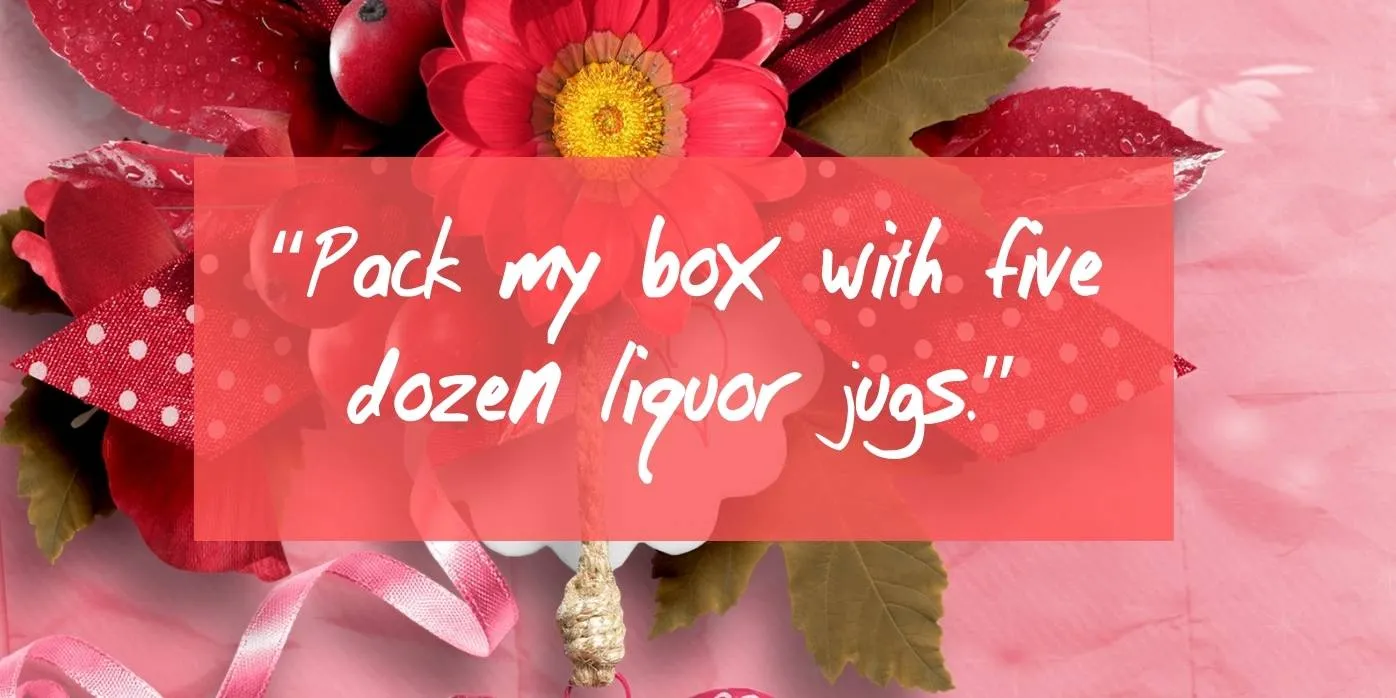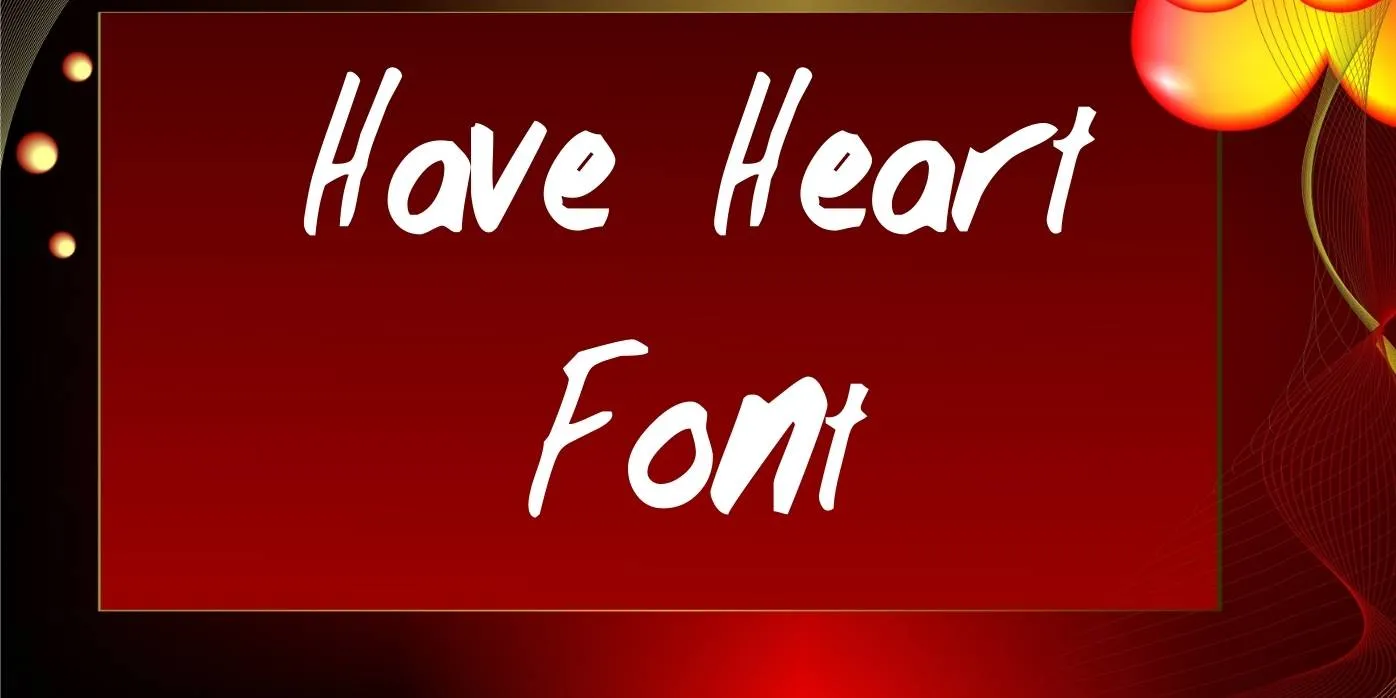
Have Heart Font
Have Heart Font was developed and designed by Sam Parrett. This typeface belongs to the Script typeface. It features a unique and playful design, making it perfect for other creative designs. This typeface includes 12 special Swashes and ligatures.
This typeface also includes 250 unique Glyphs and alternates. This cute Font is a helpful resource that explains how to use and access all of the features included with this typeface. This typeface has included instructions on how to use the font, as well as how to access and use the special Swashes and ligatures. It is specified by the CSS Family.
This typeface is best for CorelDRAW. Braxton Font is similar to this cozy typeface. This stunning typeface is very famous for its uniqueness and playfulness. This cute font is perfect for designs that need a more creative and playful touch.